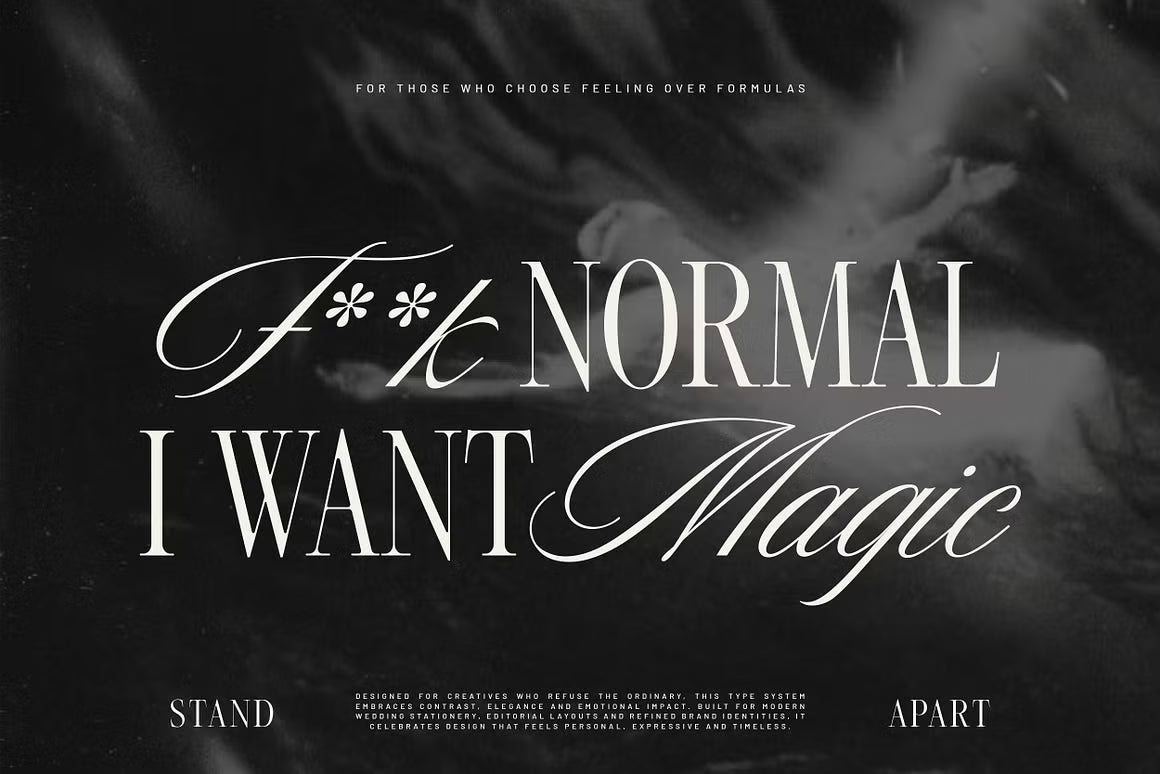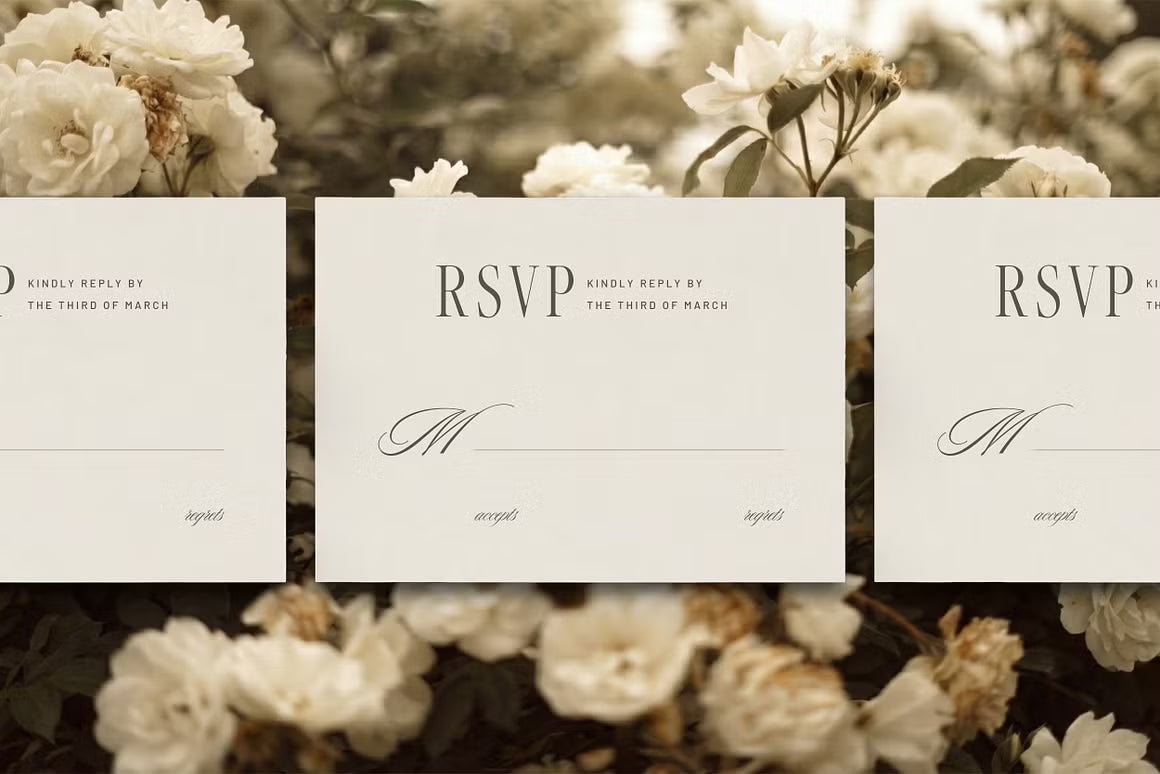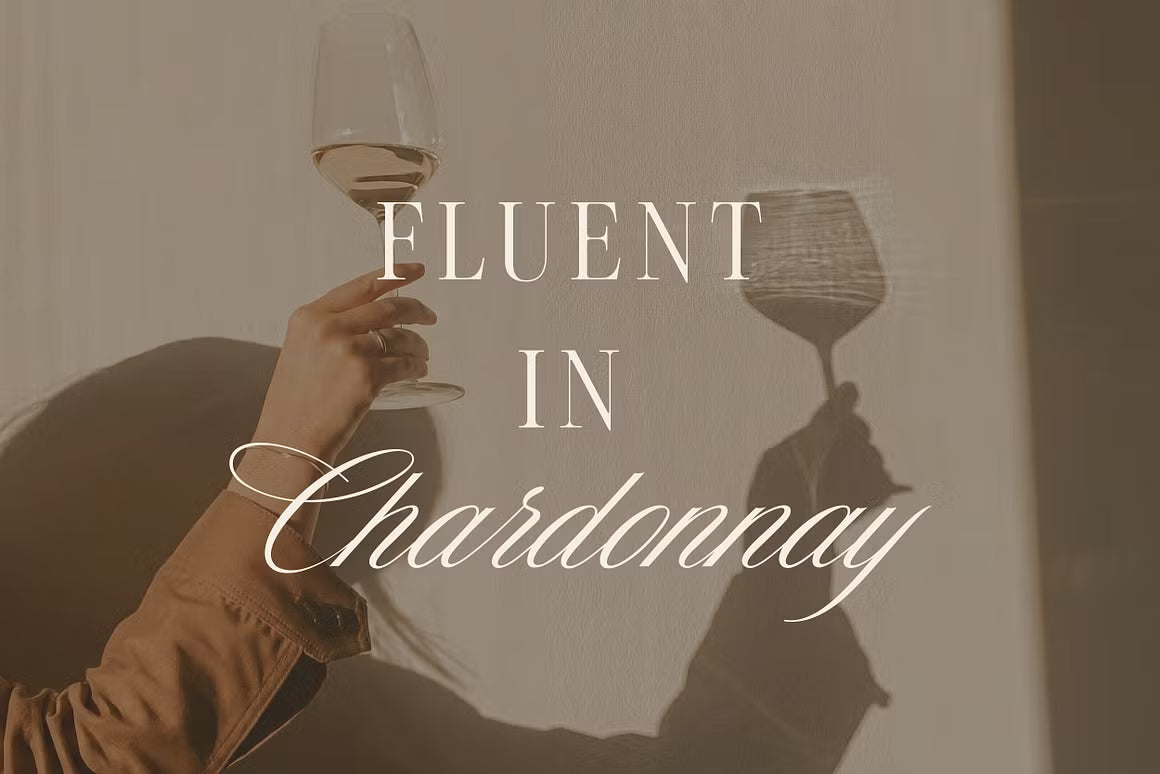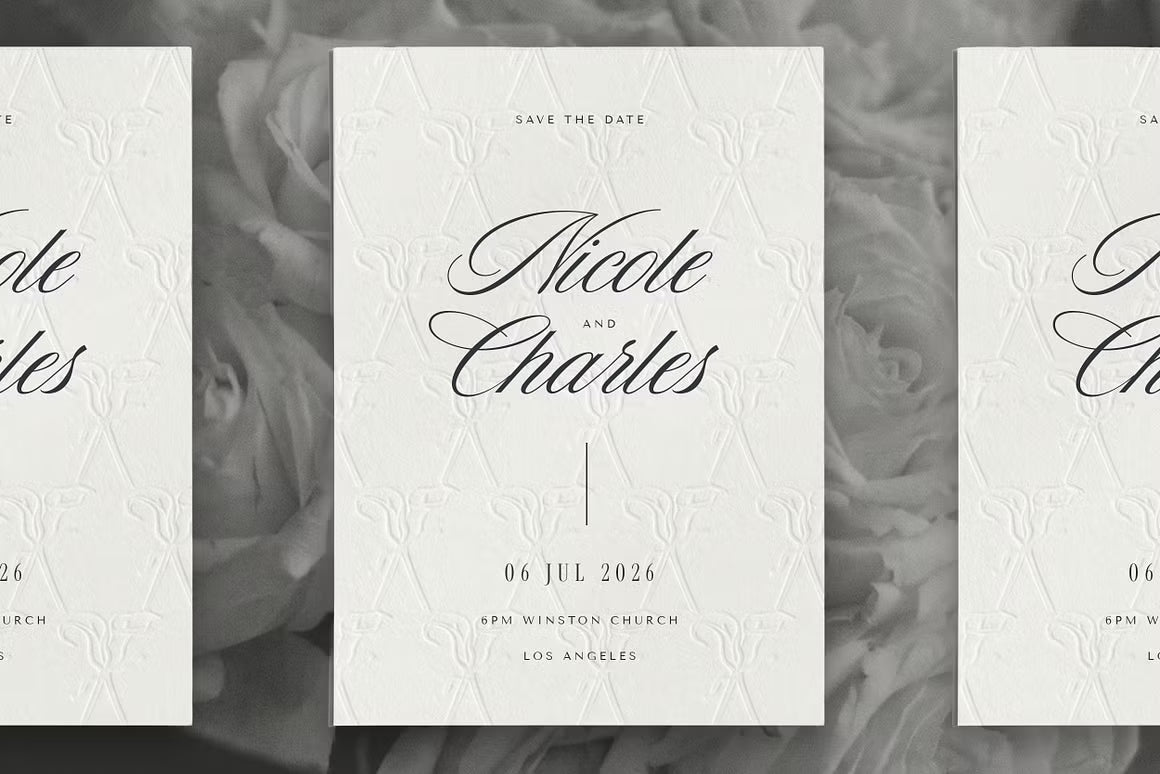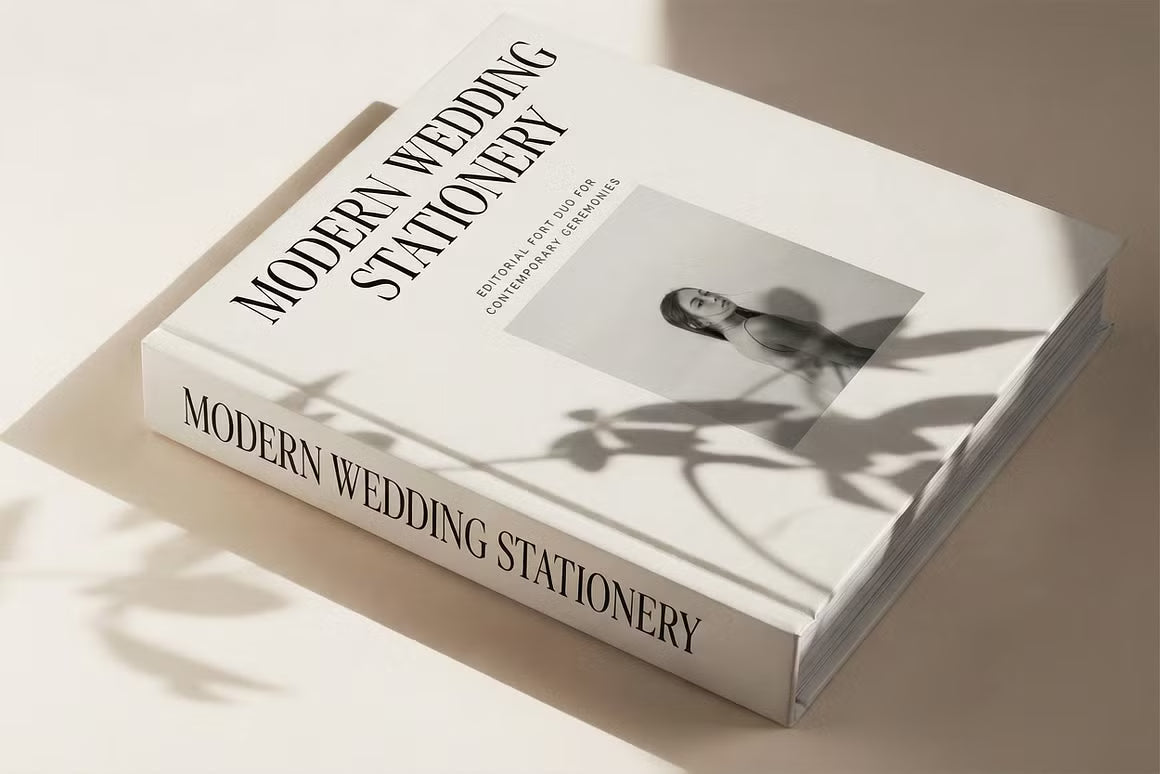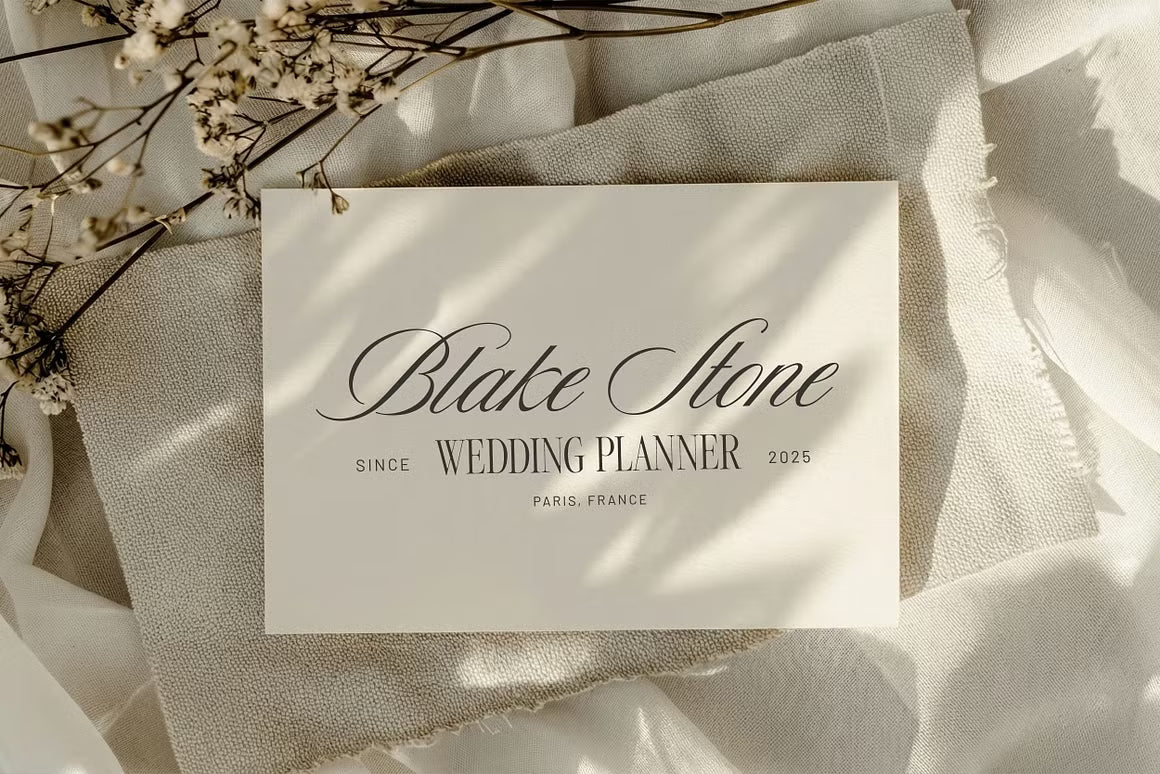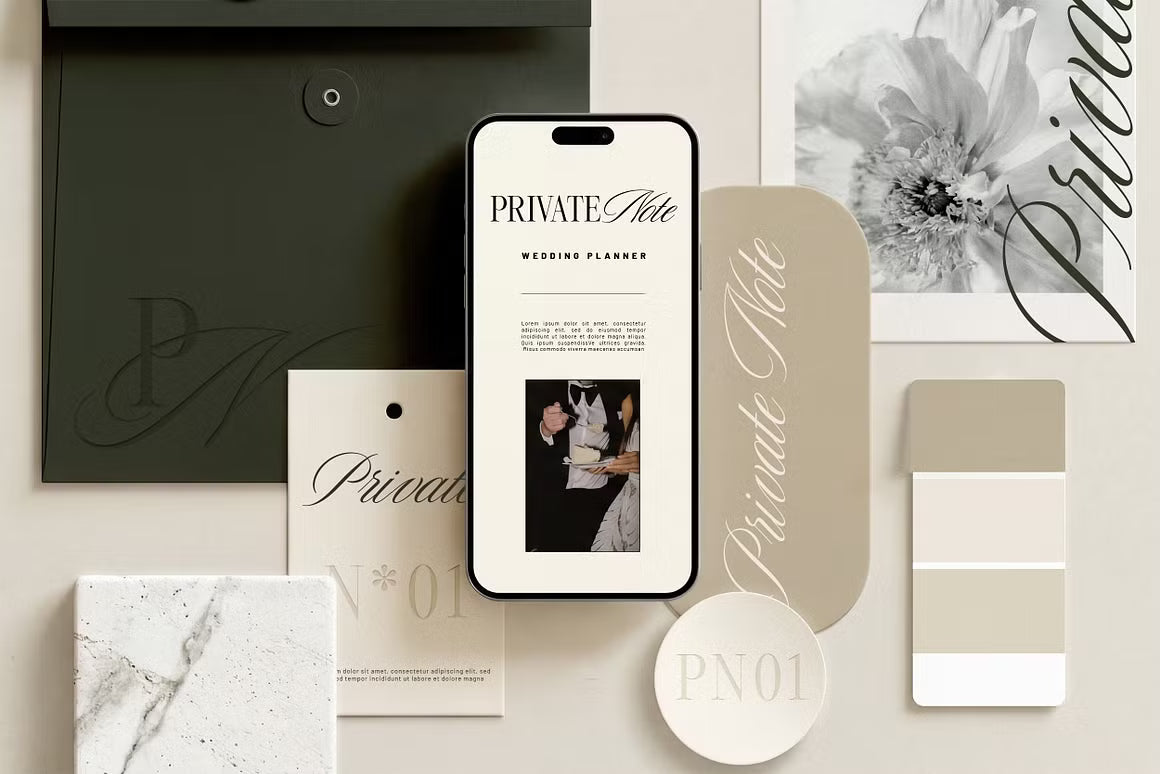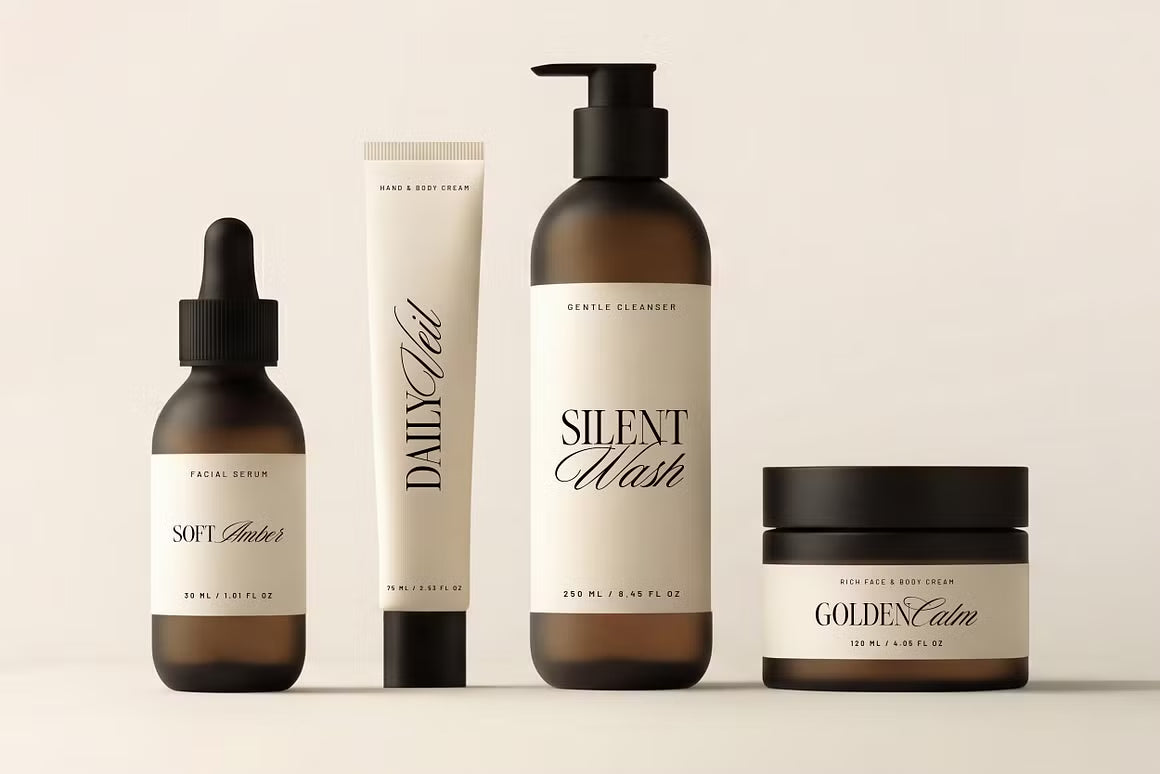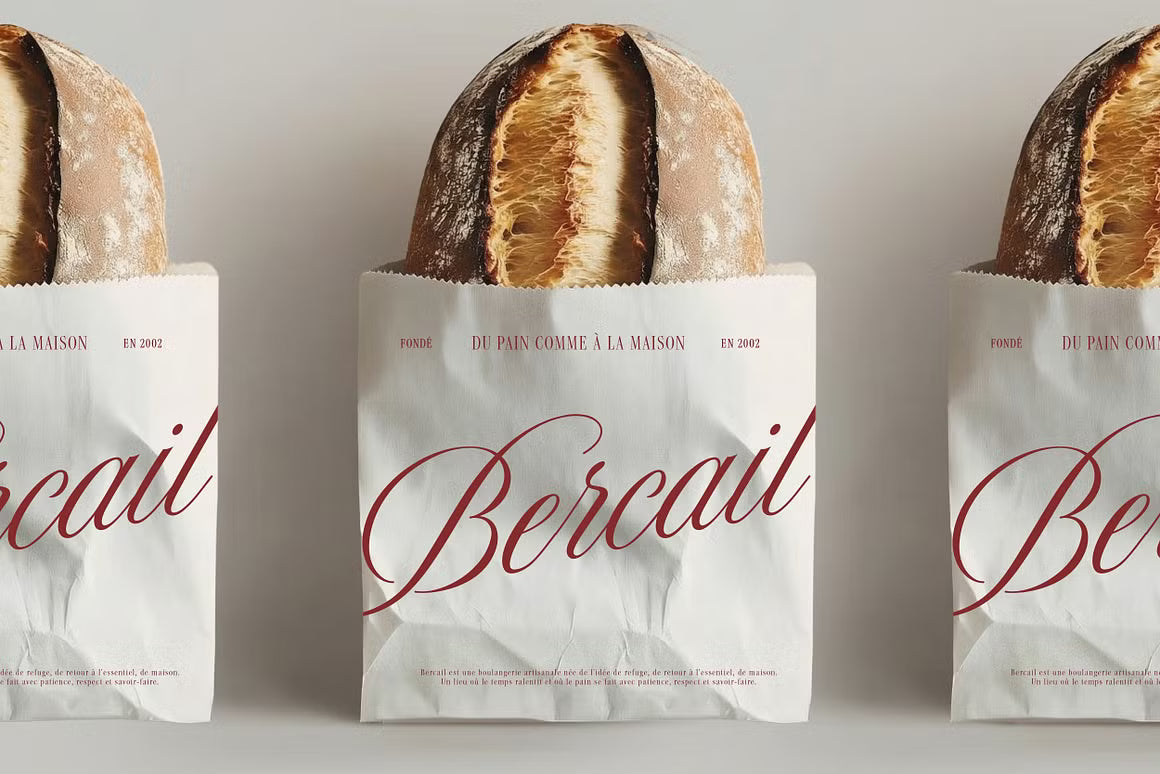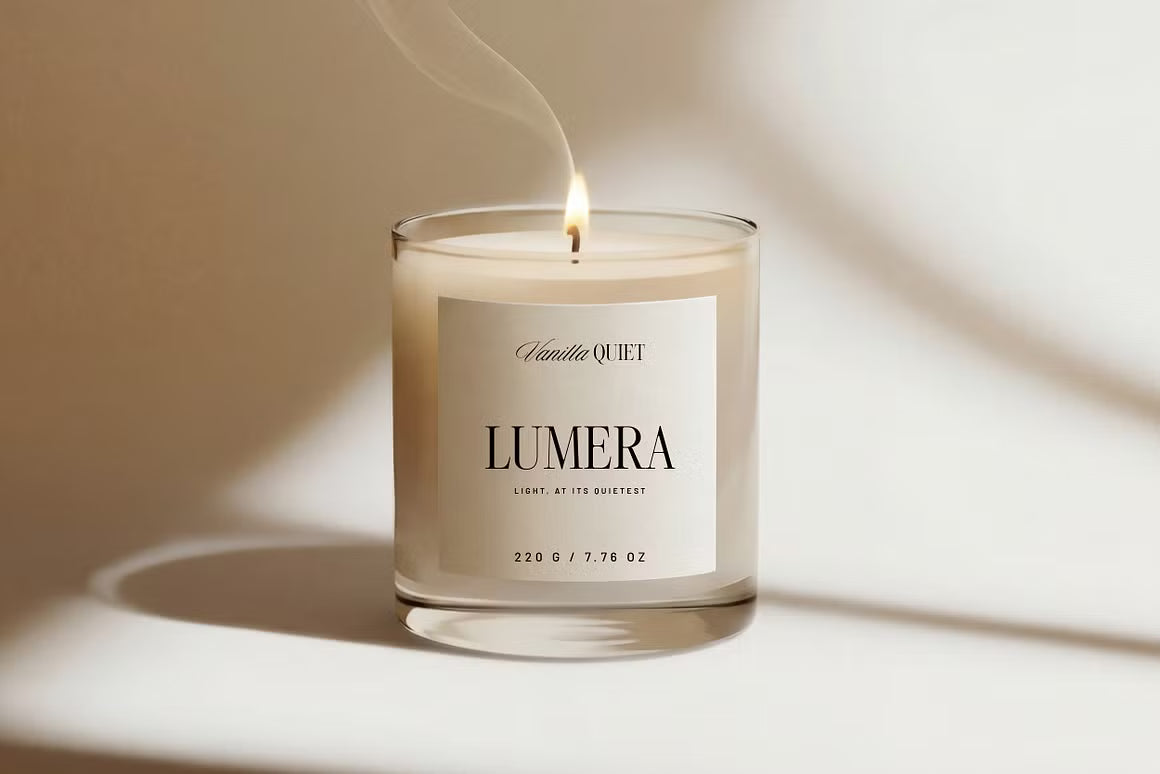
Editorial Society is a refined luxury font duo that perfectly balances a sophisticated serif with a graceful script. Designed for high-end projects, it brings an air of exclusivity and timeless elegance — think premium fashion editorials, upscale branding, fine invitations, and sophisticated lifestyle visuals.
The serif offers structure and authority, while the script adds fluidity and a personal, handwritten touch. Together they create beautiful harmony, making it easy to craft cohesive, expensive-looking designs without overthinking every detail.
If you're working on something that needs to feel exclusive and refined, this duo delivers quiet luxury with real presence.
Editorial Society - Luxury Font Duo